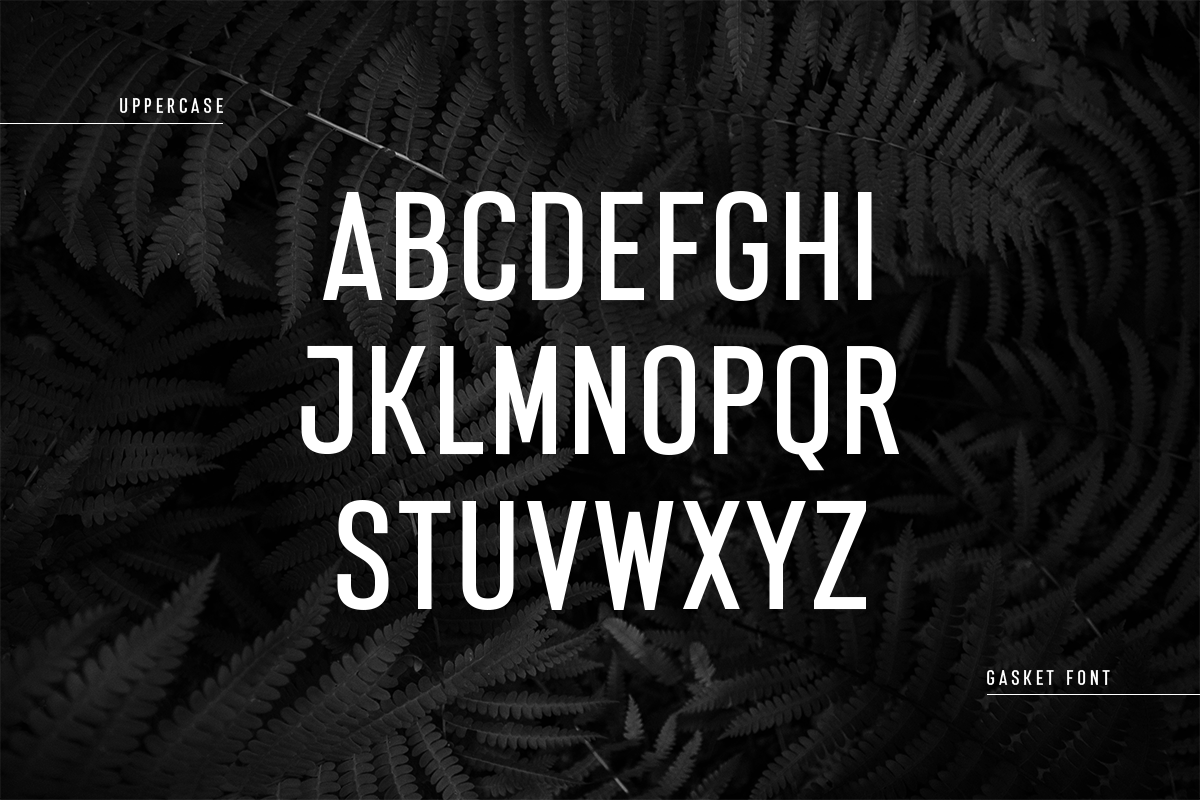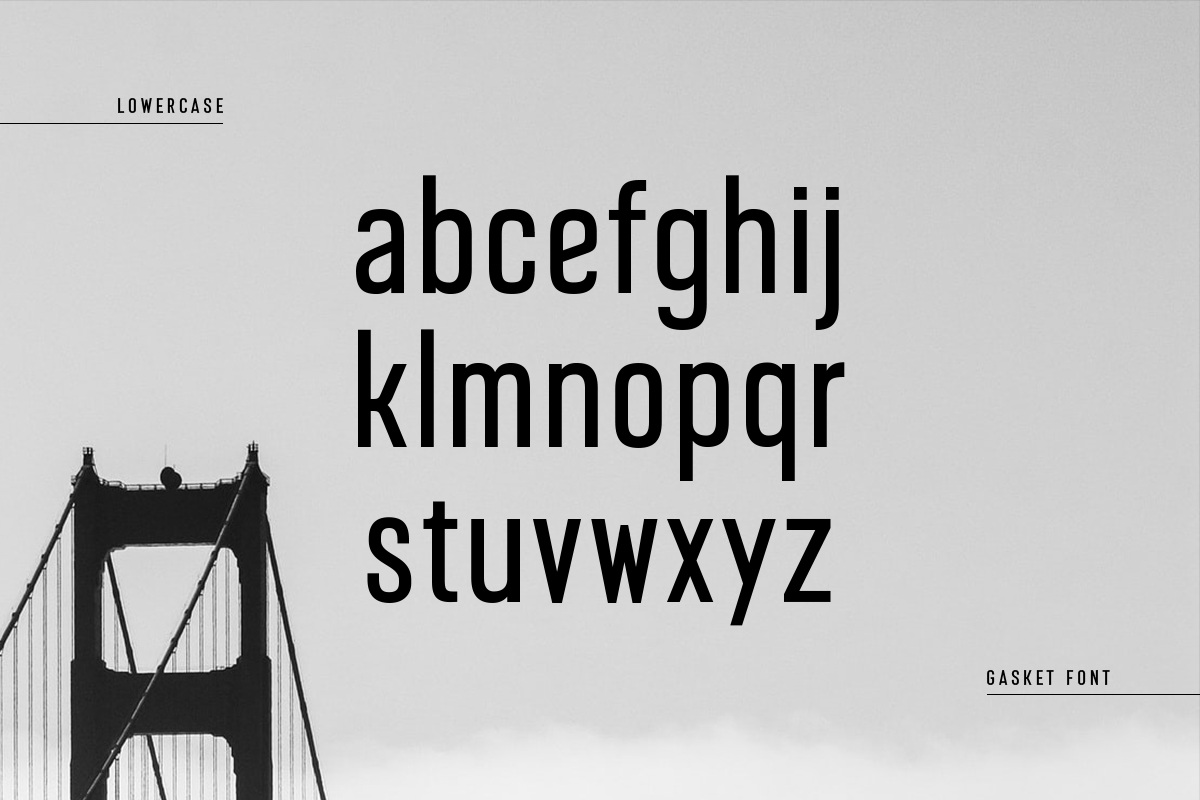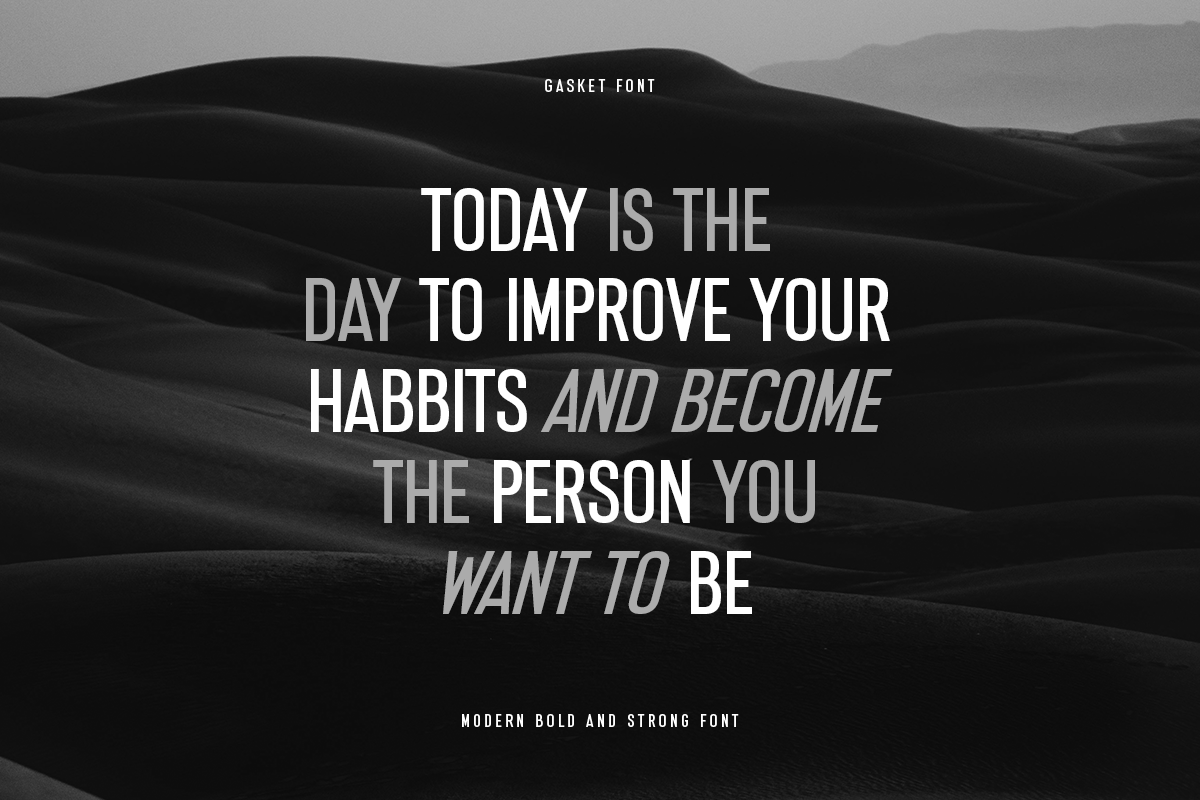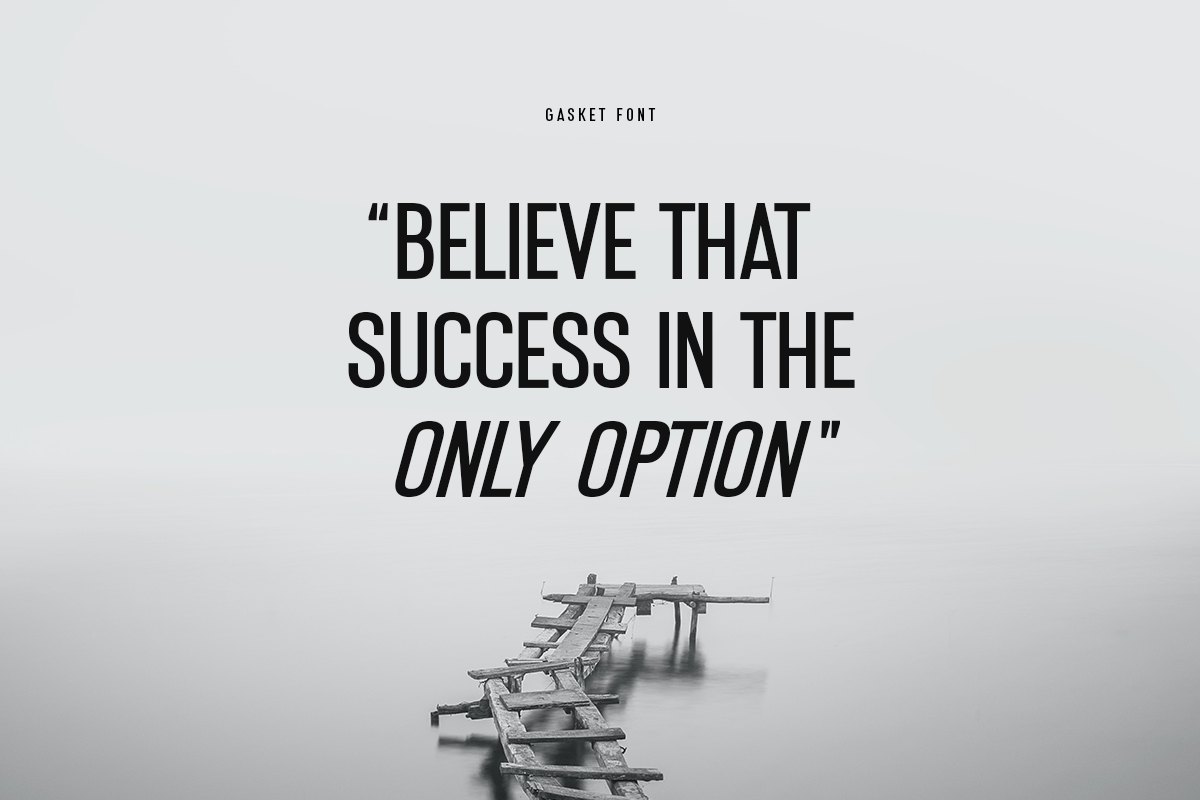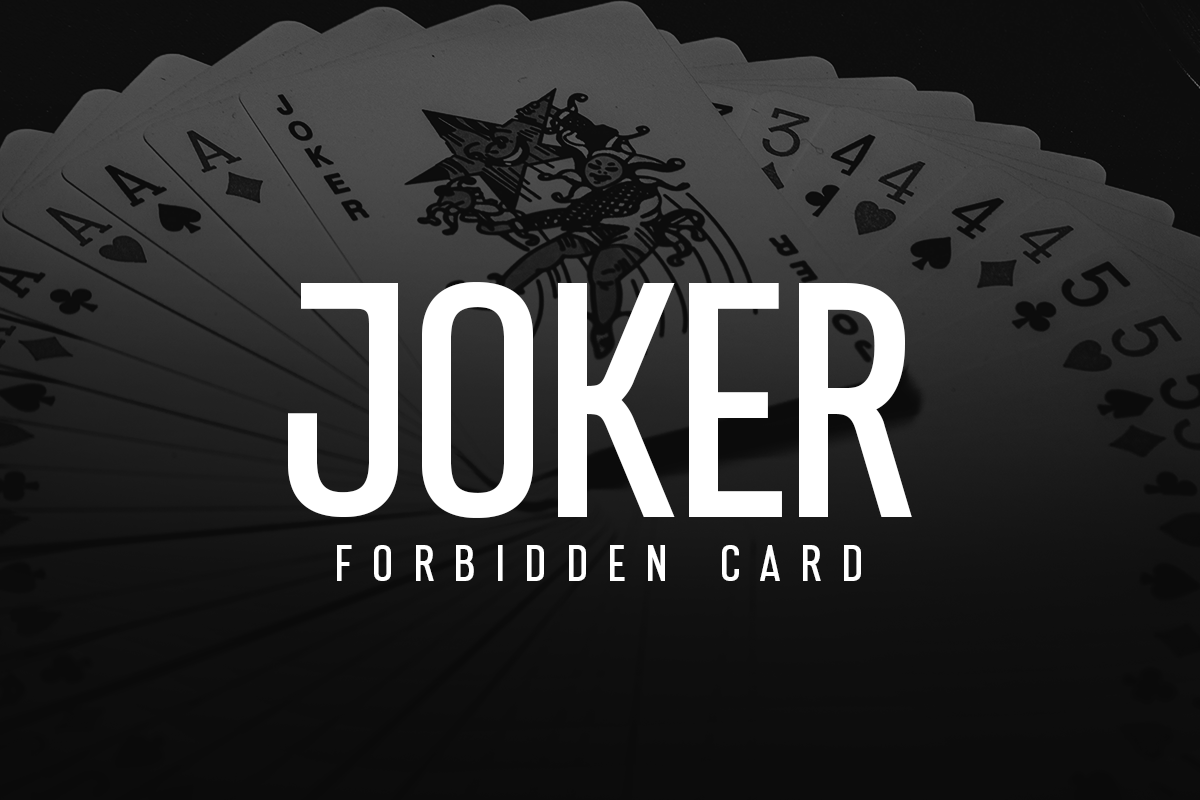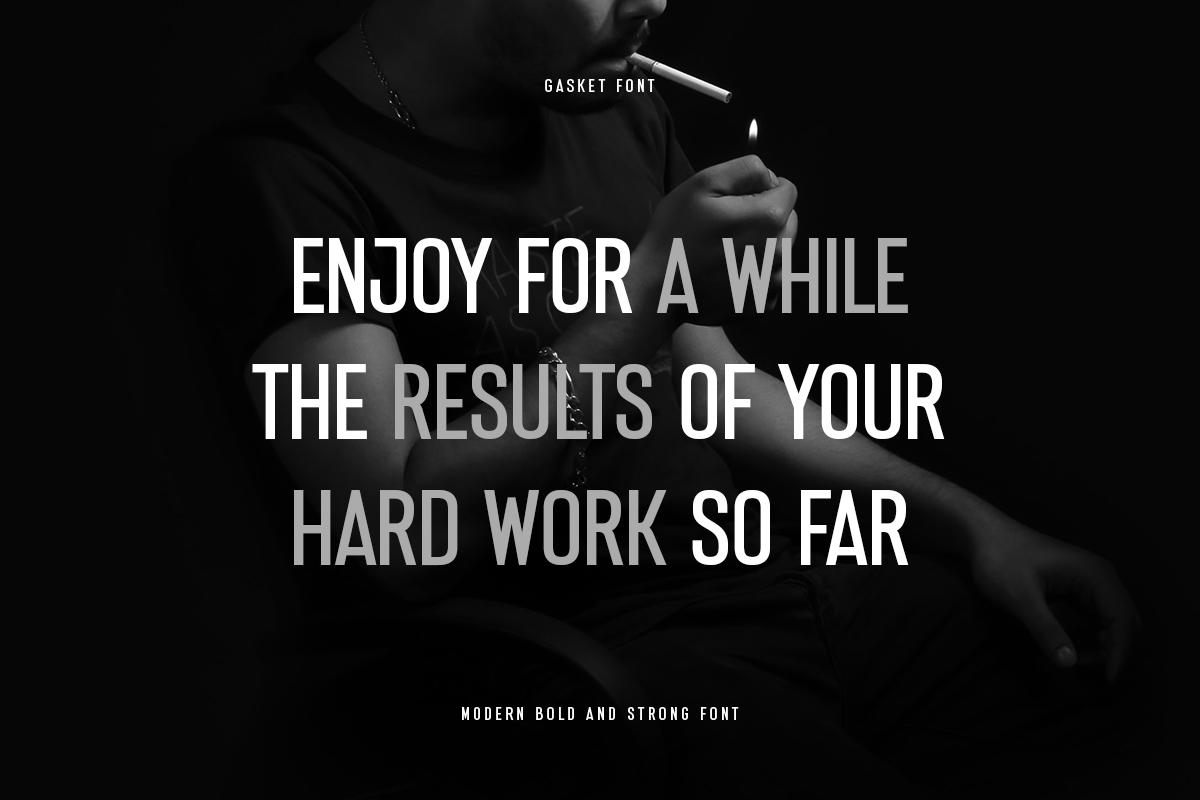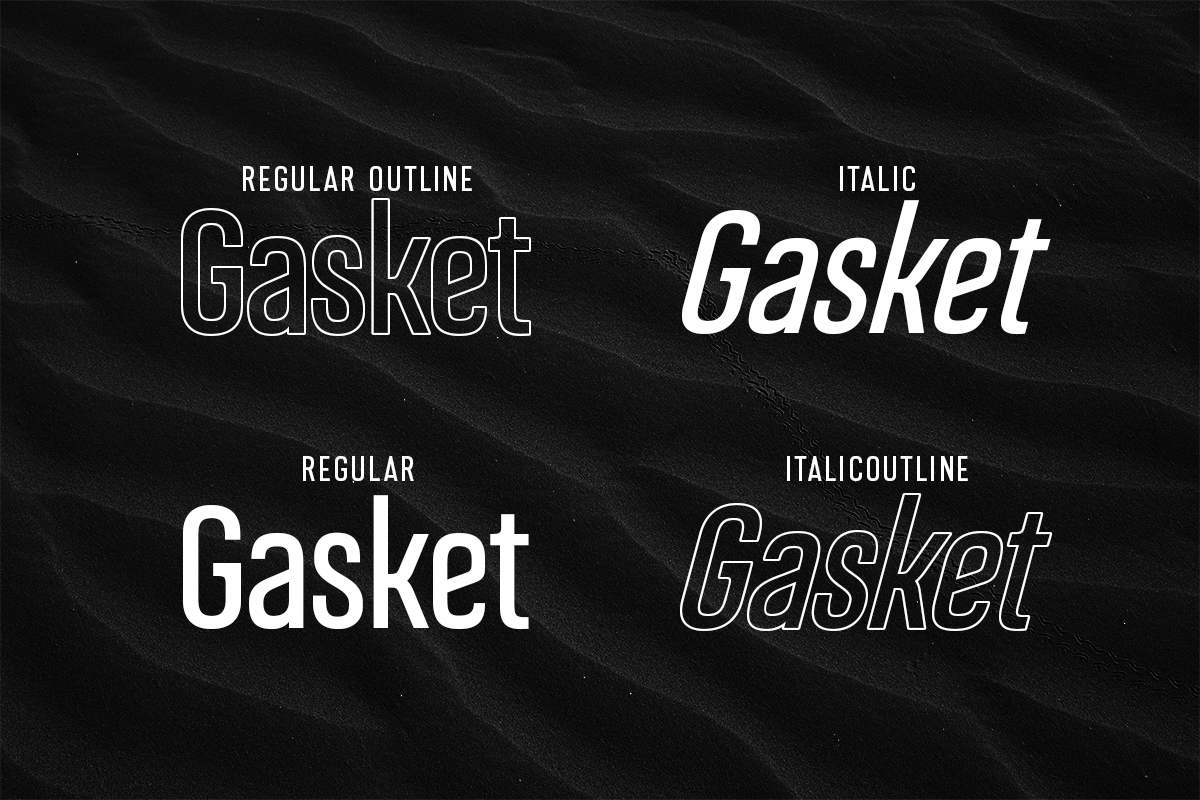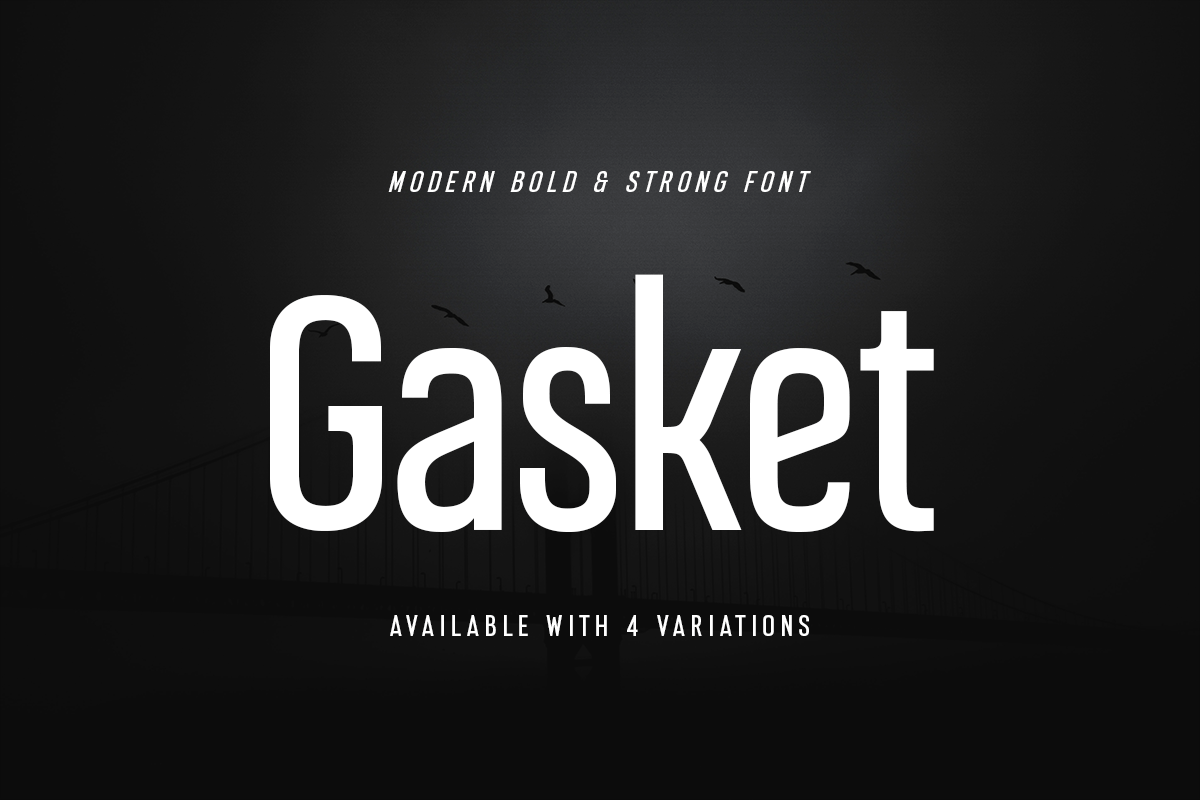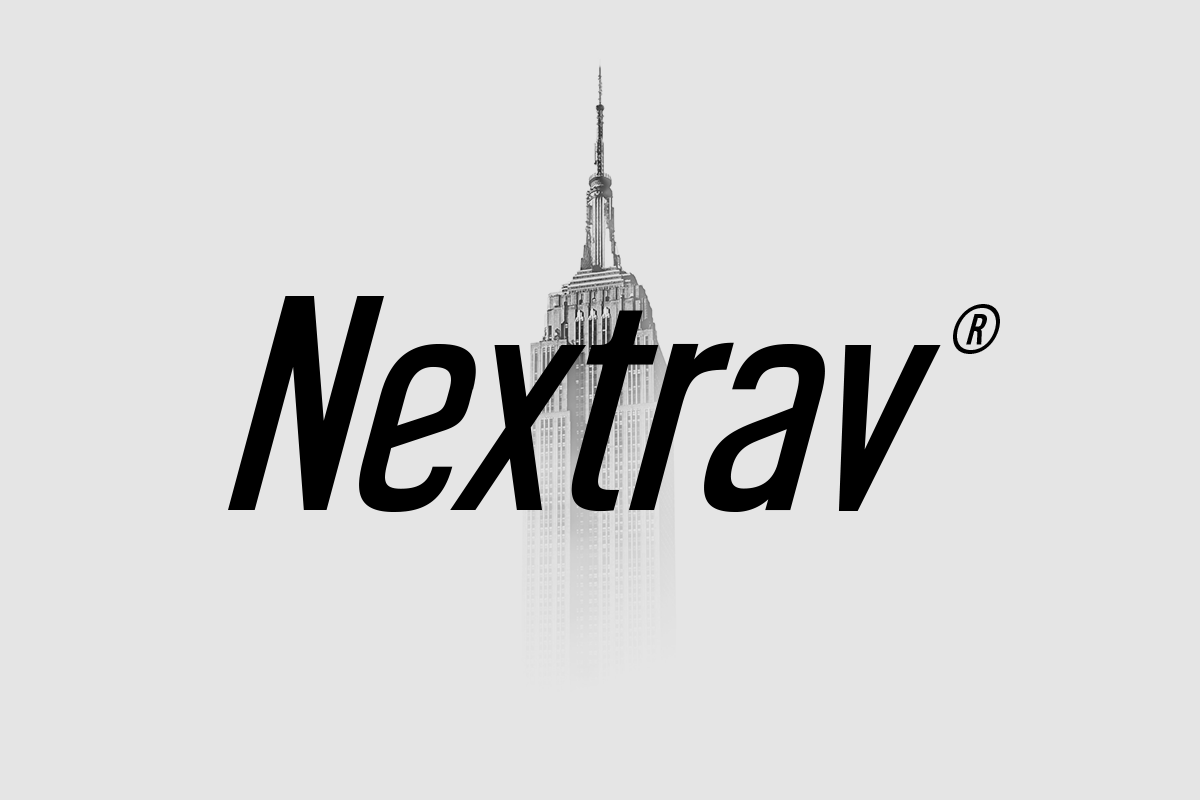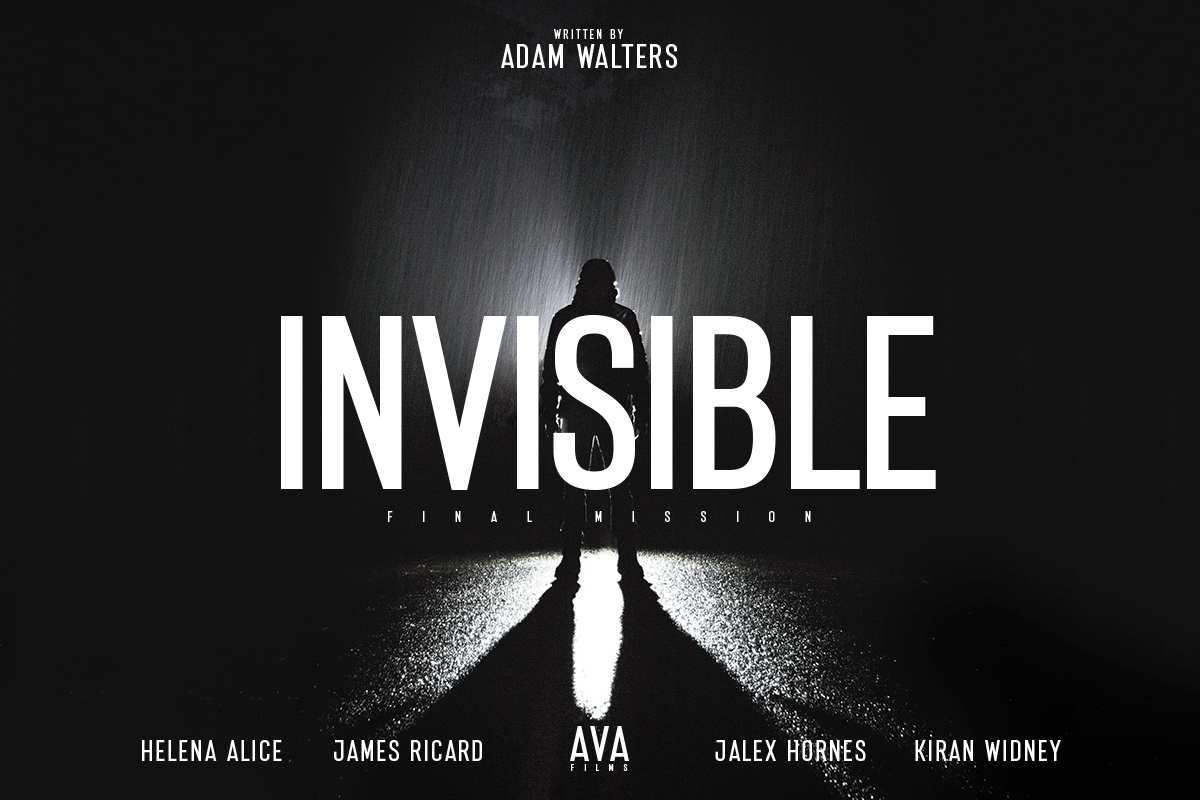
Gasket
-Modern Corporate Condensed Sans Serif
gasket italic
gasket outline
gasket italic outline
Gasket is a Modern Condensed Sans Serif perfect for your Corporate Headline Needs
A new Sans Serif that we created special for Business, Corporate, proposal and any more of your project needs, with extra outline and italic version that will add your value proposition in any projects. It's so perfect to add your style and Proposal overview, specially for this we crafted for business and action style with clean feels so enjoy to create any project that will show your main idea stand out.